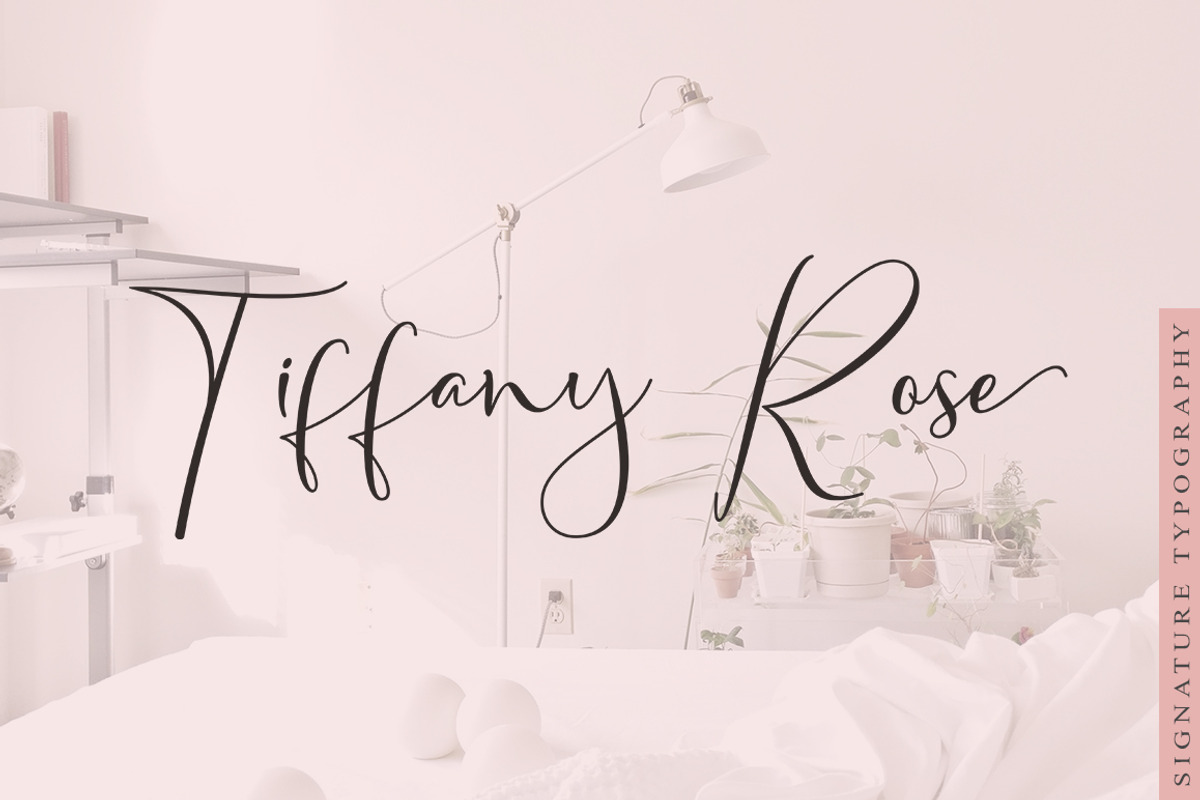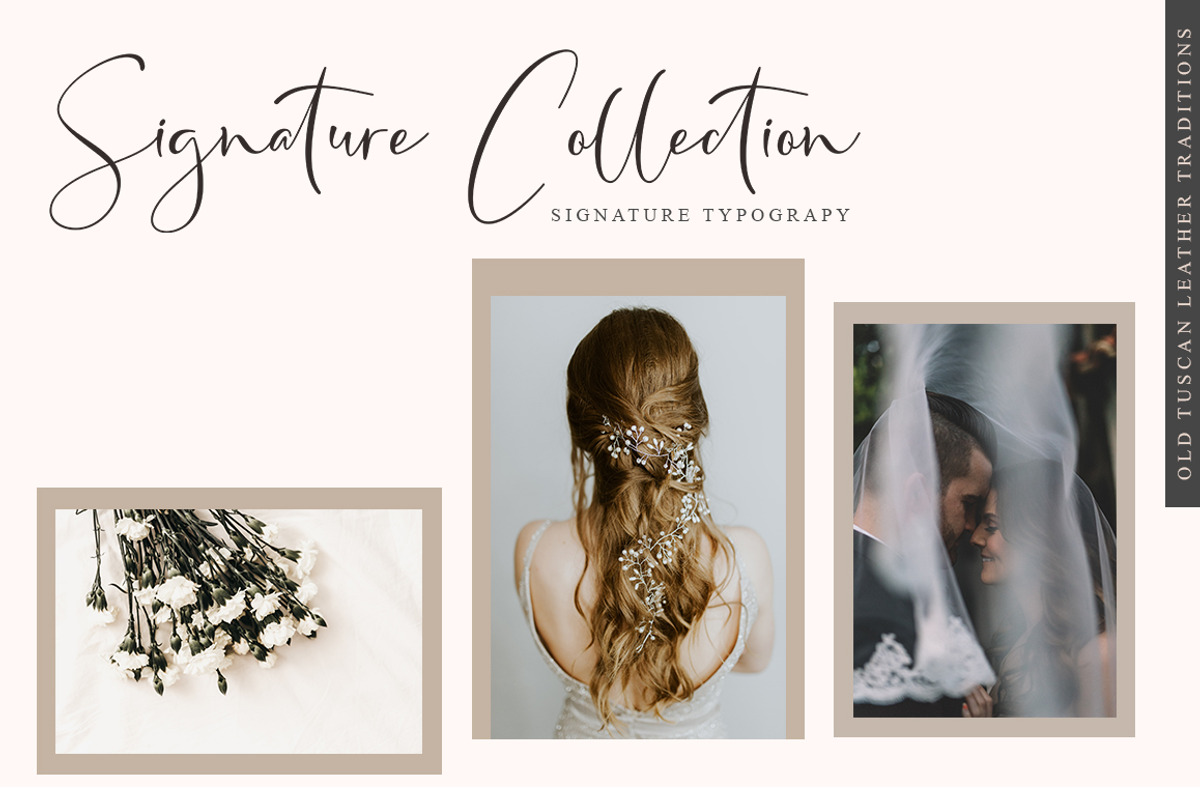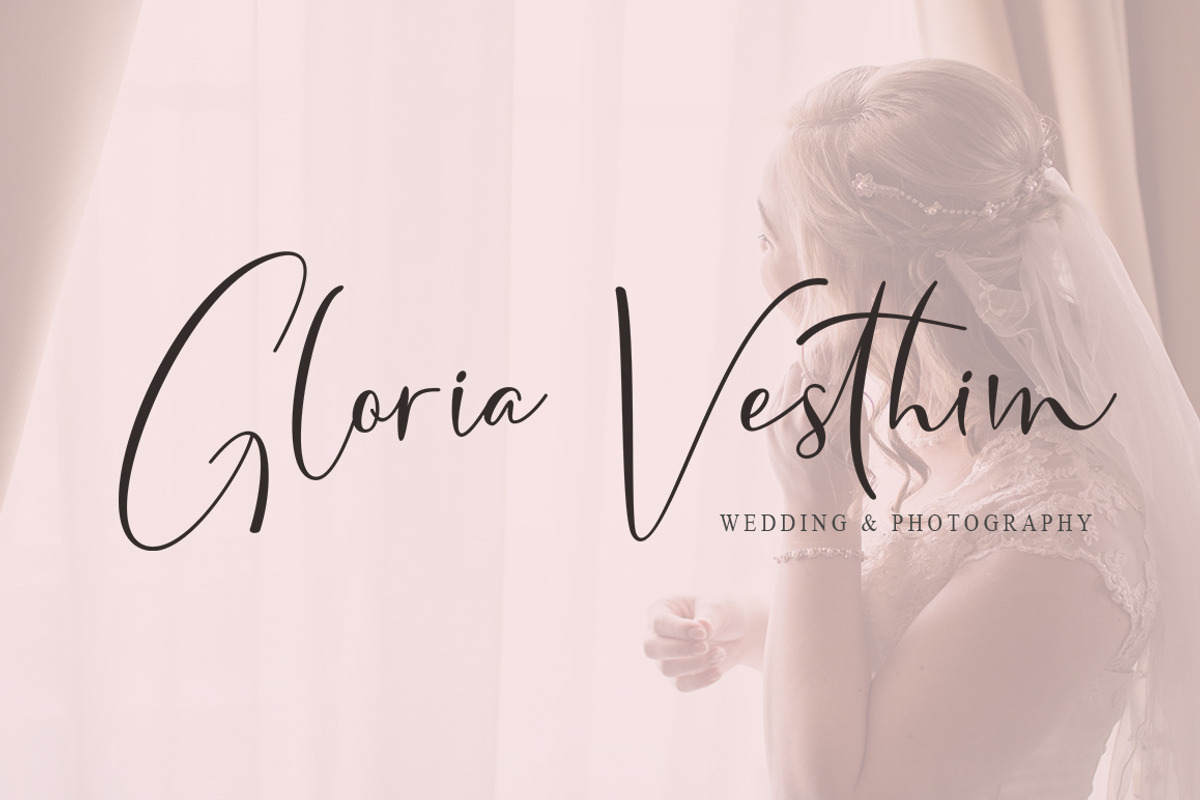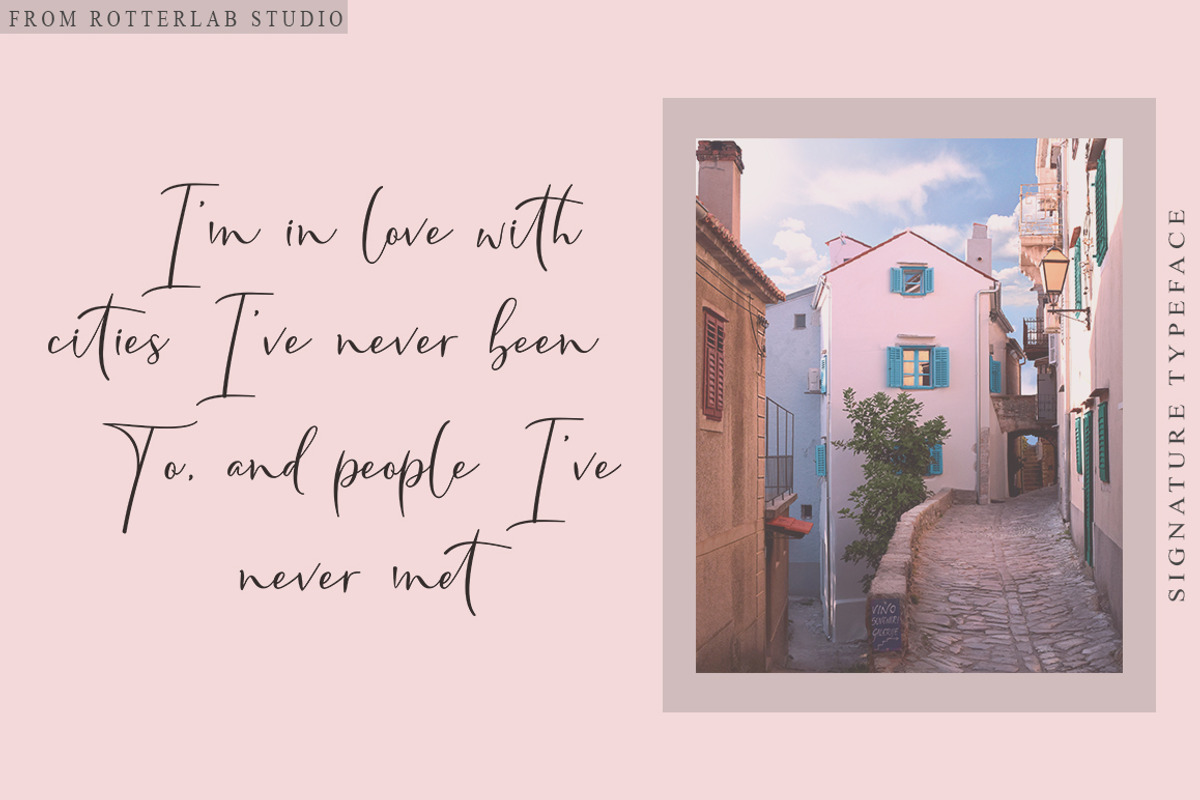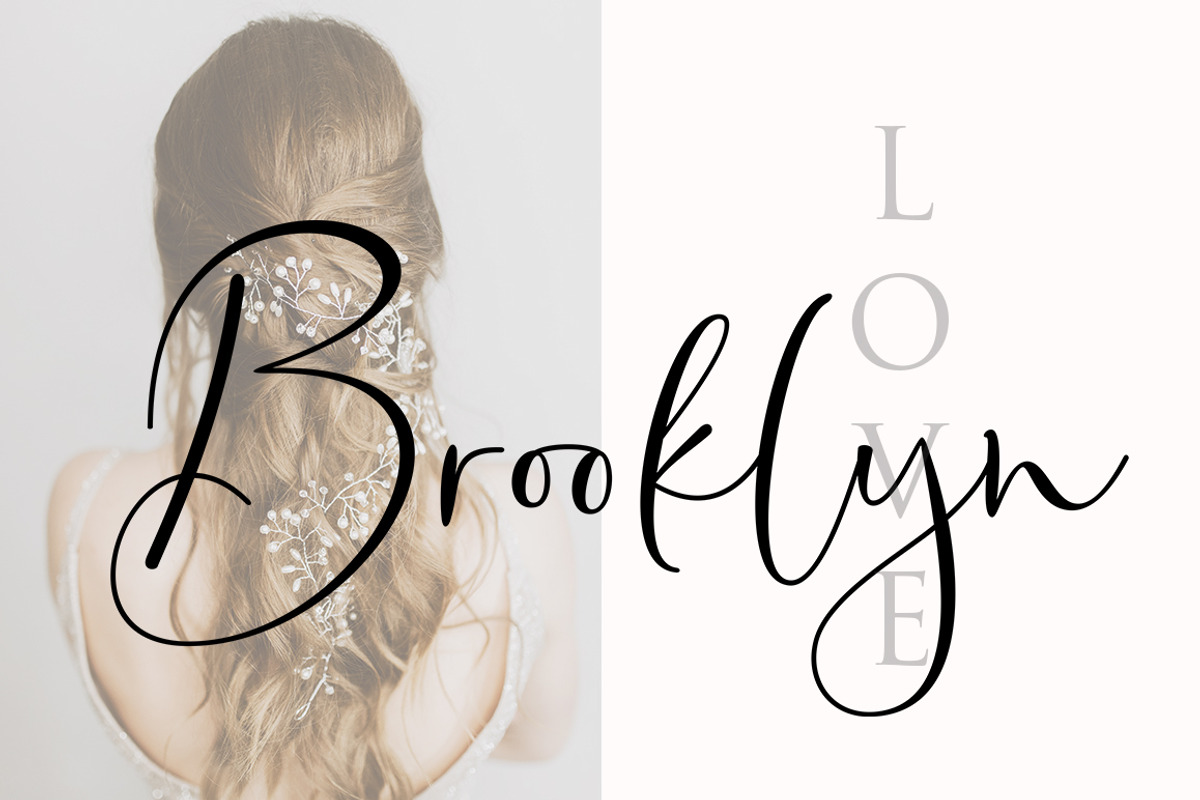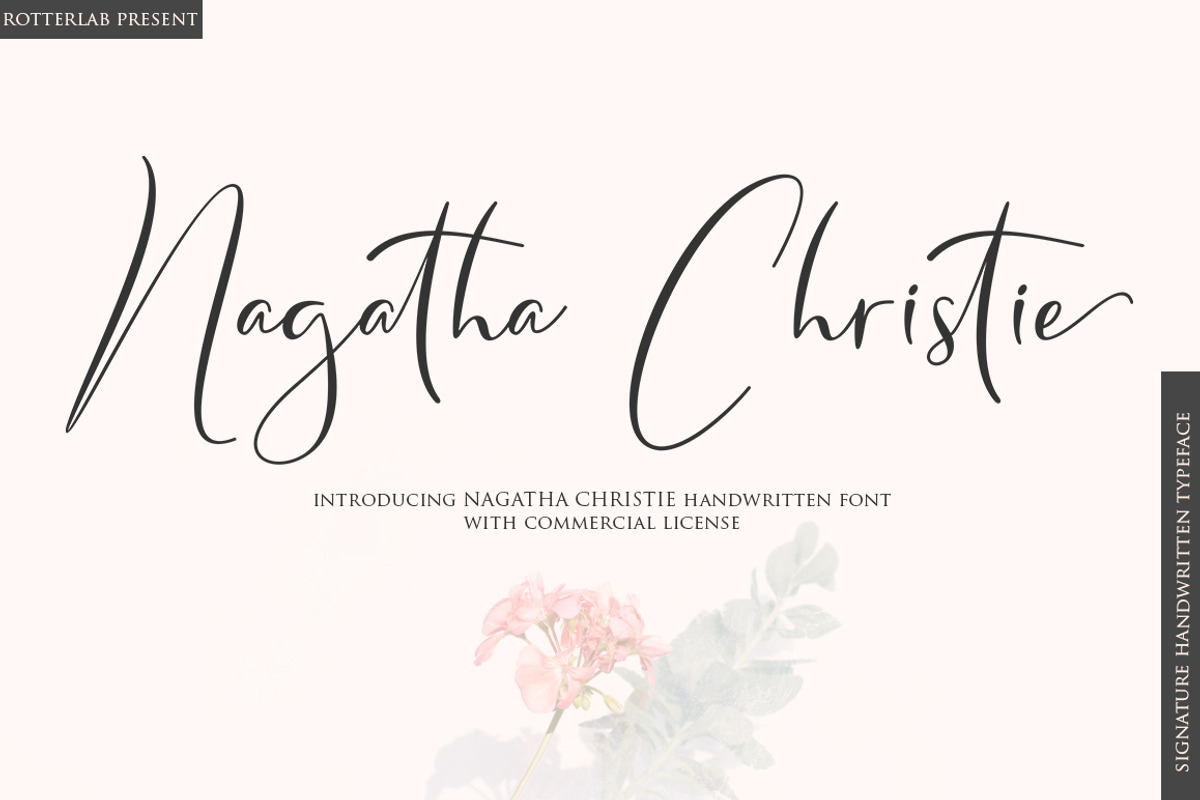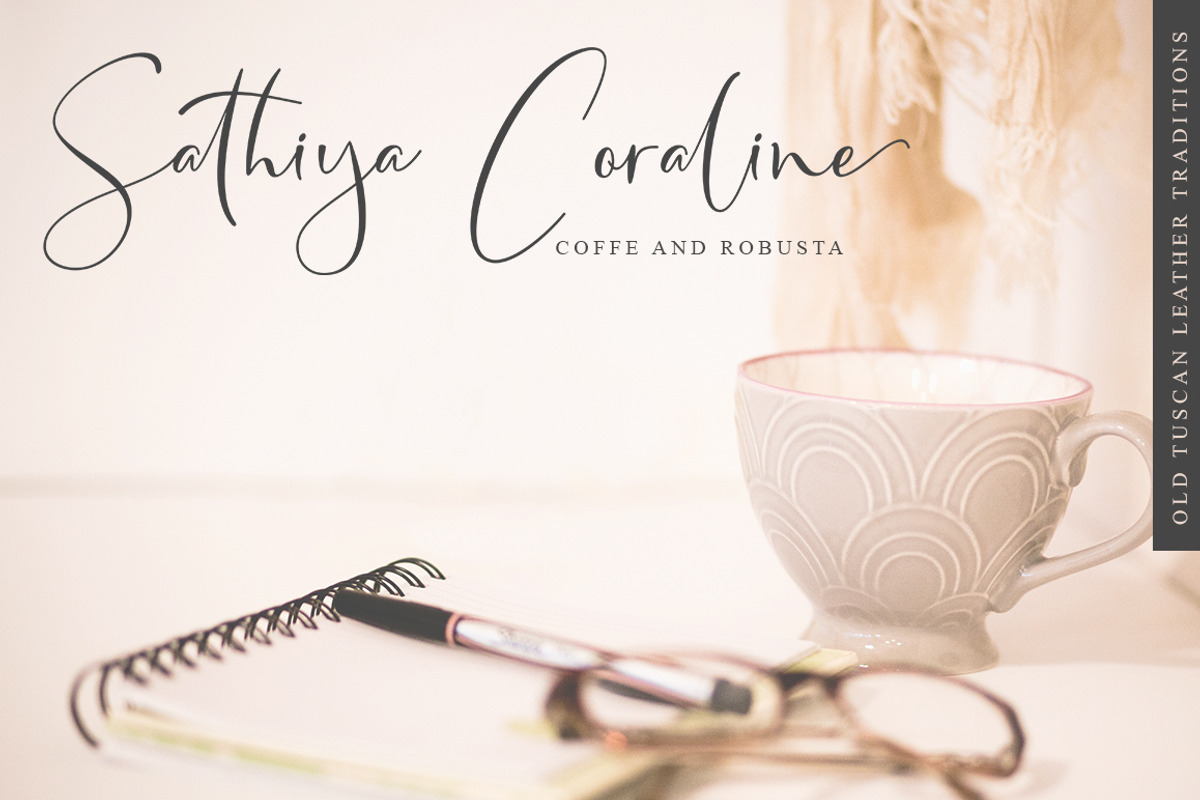
Nagatha Christie
"Nagatha Christie" is a modern calligraphy font with sophisticated messy ink accents. It is perfect for branding, packaging design.
"Nagatha Christie" includes full set of lovely uppercase and lowercase letters, multilingual symbols, numerals, punctuation and ligatures. All lowercase letters include beautiful and unique (each letter has own "unpatterned" ending) beginning and ending swashes. Also, includes following multilingual symbols